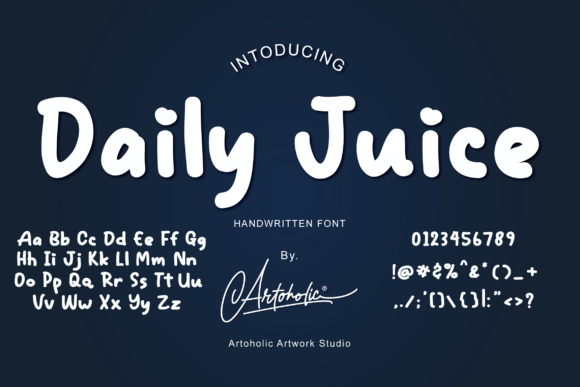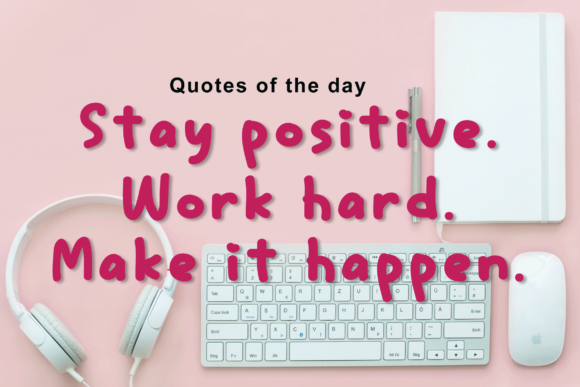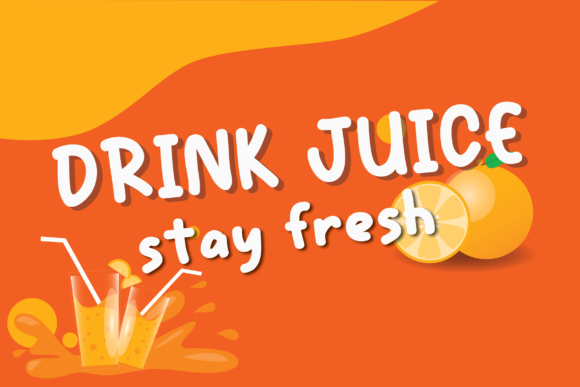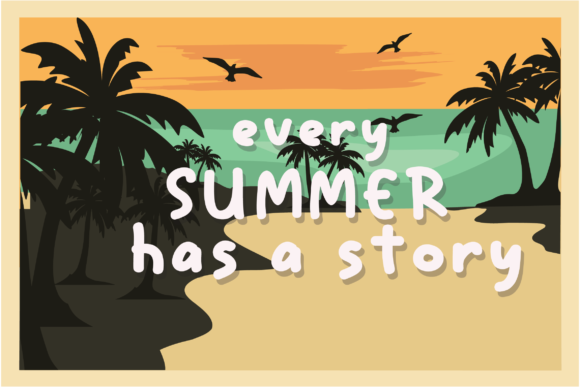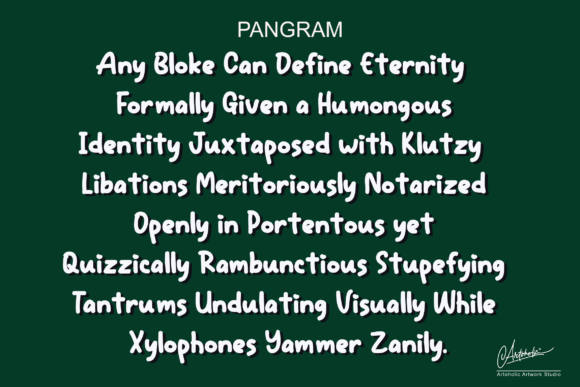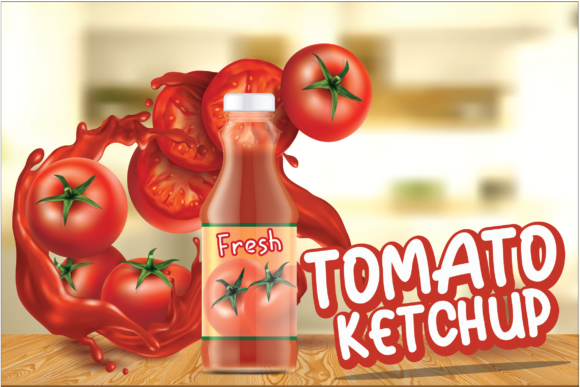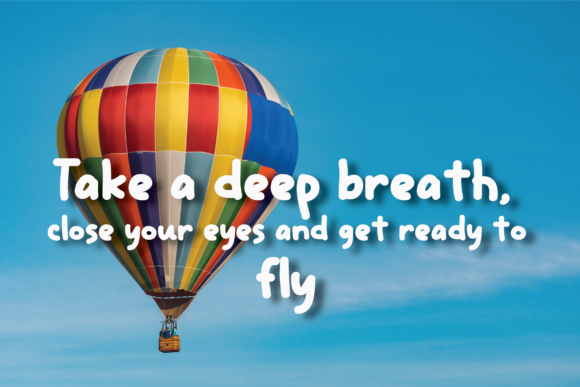
Daily Juice Font
About Daily Juice Font
Daily Juice is a cute, paint brushed handwritten font. Whatever the topic, this font will be a wonderful asset to your font library, as it has the potential to enhance any creation.